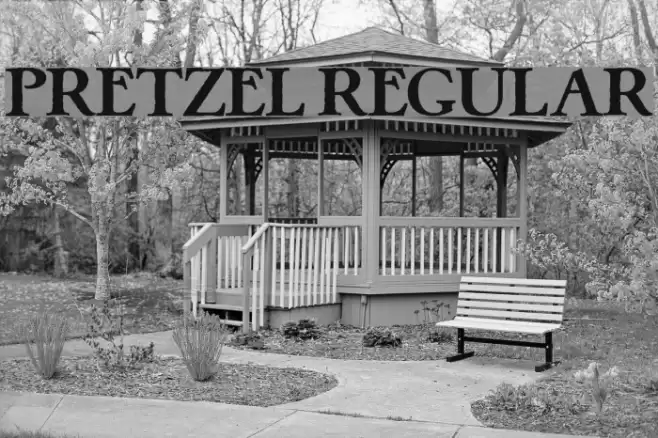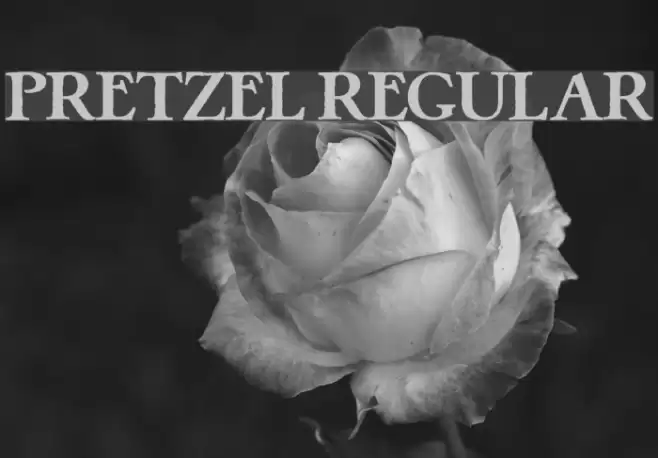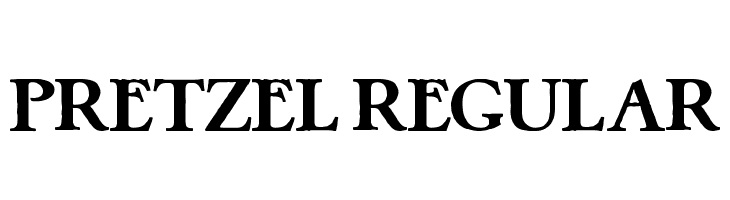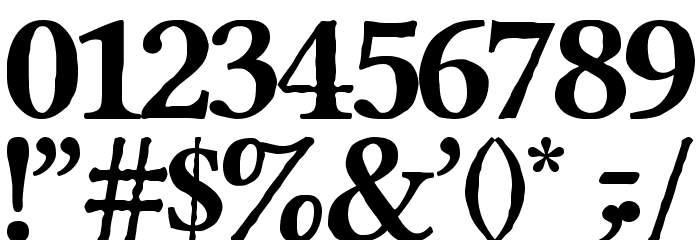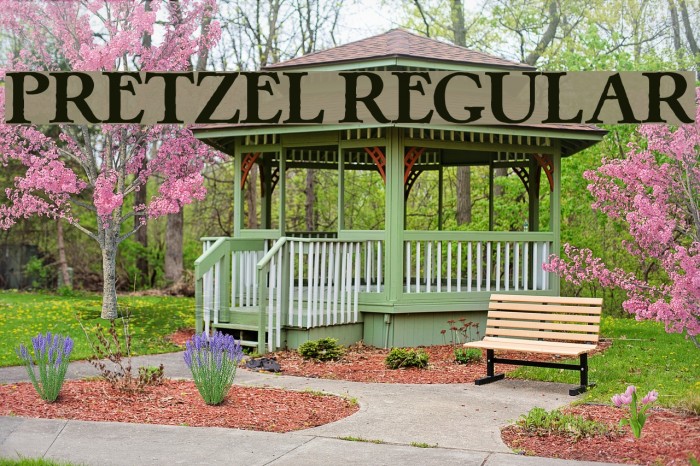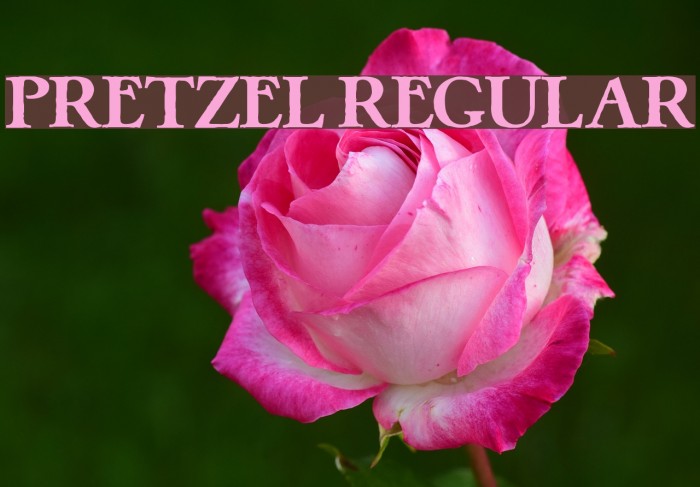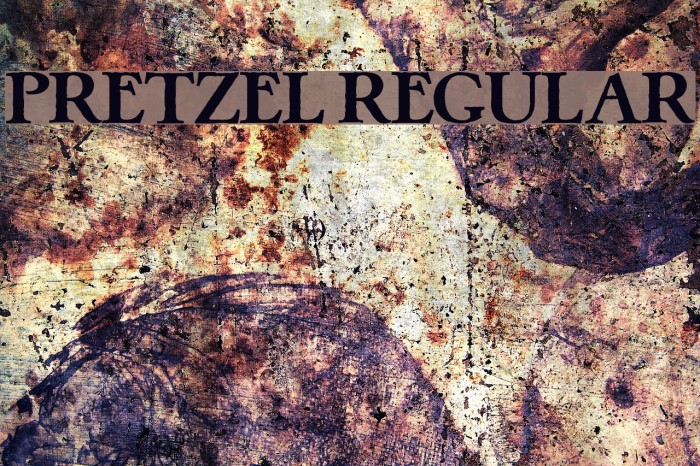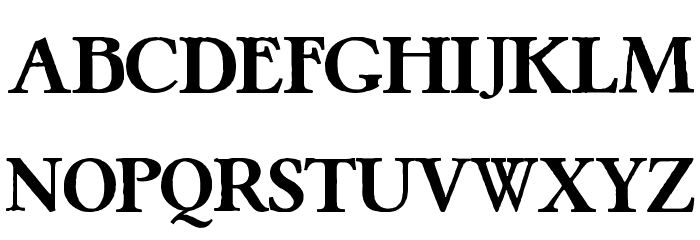
Pretzel Regular Font
Pretzel Regular Description
This font features a bold and dynamic style with a strong presence. The characters are designed with high contrast between thick and thin strokes, giving it a dramatic and eye-catching appearance. The serifs are pronounced and add a touch of elegance, while the overall design maintains a sense of modernity. The uppercase and lowercase letters are well-balanced, and the numbers are distinctive with a slight flair. Special characters are crafted with attention to detail, making them stand out. This font is versatile and can be used in various design contexts.
A bold, high-contrast serif font with a modern and elegant style from Distorted Eroded fonts.